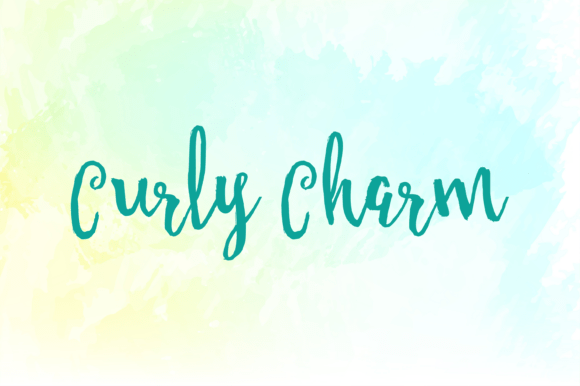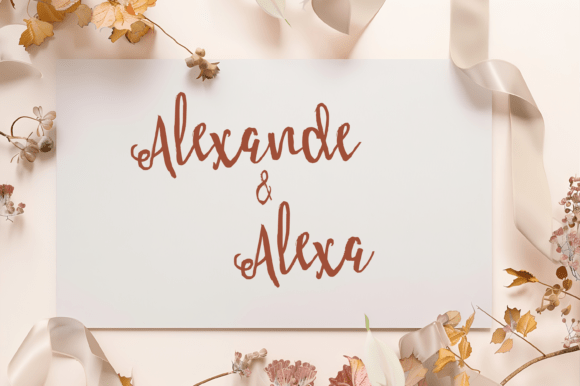
Introducing Curly Charm Font: The Ultimate Handwritten Script for Creative Designs
Are you looking for a font that can add a personal touch to your designs? Do you want to infuse your work with warmth, playfulness, and a handcrafted feel? Look no further than Curly Charm Font, a delightful handwritten script font that radiates joy and creativity. In this article, we’ll explore the features and benefits of Curly Charm, and why it’s the perfect choice for designers and crafters alike.
The Essence of Handwritten Charm
Curly Charm Font is a beautiful representation of handwritten charm. With its smooth curls, natural flow, and graceful strokes, this font captures the essence of handwritten elegance. Its unique and distinctive style is reminiscent of handwritten scripts, making it perfect for adding a personal touch to your designs. Whether you’re working on branding, invitations, greeting cards, quotes, packaging, or social media content, Curly Charm is the ideal choice.
A Versatile Style for Creative Projects
One of the standout features of Curly Charm Font is its versatility. This font strikes a balance between casual elegance and whimsical flair, making it suitable for a wide range of creative projects. Whether you’re designing a logo, creating a social media graphic, or crafting a handmade card, Curly Charm is the perfect choice. Its friendly yet stylish handwritten feel makes it ideal for projects that need a personal touch.
Key Features of Curly Charm Font
- Smooth Curls and Natural Flow: Curly Charm Font features smooth curls and a natural flow, giving it a unique and distinctive style.
- Graceful Strokes: The font’s graceful strokes add to its elegance and sophistication.
- Handwritten Charm: Curly Charm captures the essence of handwritten charm, making it perfect for adding a personal touch to your designs.
- Versatile Style: The font’s versatile style makes it suitable for a wide range of creative projects.
Why Choose Curly Charm Font?
So, why choose Curly Charm Font for your creative projects? Here are just a few reasons:
- Adds a Personal Touch: Curly Charm Font adds a personal and creative touch to your designs, making them stand out from the crowd.
- Infuses Joy and Personality: The font’s playful and whimsical style infuses your work with joy and personality.
- Handcrafted Feel: Curly Charm Font gives your designs a handcrafted feel, making them perfect for handmade or craft-related projects.
- Elegant and Sophisticated: The font’s elegant and sophisticated style makes it suitable for a wide range of creative projects.
Using Curly Charm Font in Your Designs
Curly Charm Font is easy to use and can be incorporated into a variety of design projects. Here are a few ideas to get you started:
- Branding: Use Curly Charm Font to create a unique and memorable brand identity.
- Invitations: Add a personal touch to your invitations with Curly Charm Font.
- Greeting Cards: Create beautiful and heartfelt greeting cards with Curly Charm Font.
- Quotes: Use Curly Charm Font to create inspiring and motivational quotes.
- Packaging: Add a touch of elegance and sophistication to your packaging with Curly Charm Font.
- Social Media Content: Use Curly Charm Font to create engaging and eye-catching social media graphics.
In conclusion, Curly Charm Font is a delightful handwritten script font that radiates warmth, playfulness, and creativity. Its smooth curls, natural flow, and graceful strokes make it perfect for adding a personal and creative touch to your designs. With its versatile style and elegant sophistication, Curly Charm Font is the ideal choice for designers and crafters alike. So why wait? Try Curly Charm Font today and infuse your work with personality, joy, and a handcrafted touch!